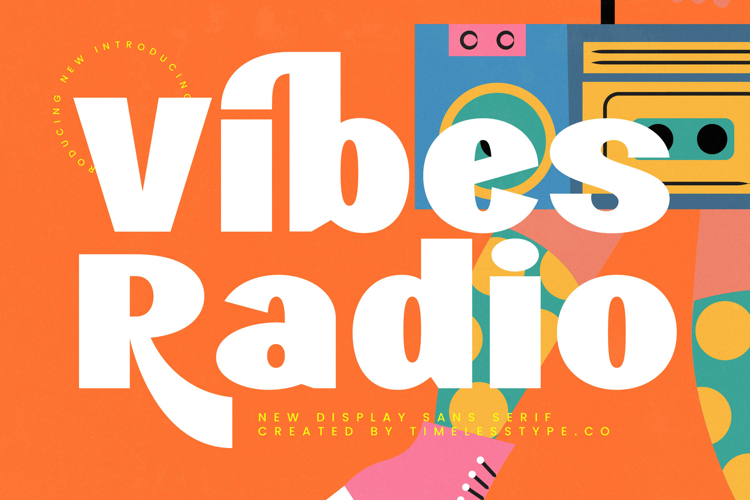
Vibes Radio - New Display Sans Serif
The Vibes Radio Typeface is a display sans serif font with a bold, fun, and retro-modern style. Designed to bring a vibrant, playful, and expressive atmosphere, this font is perfect for music, entertainment, and lifestyle-themed designs. Its thick, clean letterforms with subtle unique accents create a dynamic and eye-catching look, making it the ideal choice for creative projects that aim to highlight joy and positive energy.
This typeface works exceptionally well in editorial design, such as event posters, music magazines, creative zines, and pop culture book covers. Its bold typography ensures strong readability and impactful messaging.
In branding and packaging, Vibes Radio is an excellent fit for casual fashion, music products, soft drinks, creative merchandise, and youth-oriented brands. Its retro yet modern aesthetic creates a visual identity that feels cheerful, warm, and memorable.
For entertainment and promotional design, this font is highly effective for concert posters, festival campaigns, album covers, and media promotions. Its bold and funky character strengthens visual storytelling with a contemporary retro vibe.
In the field of digital design, Vibes Radio stands out in social media content, website branding, digital advertising, and motion graphics. Its energetic style makes it instantly recognizable and engaging across platforms.
In short, Vibes Radio Typeface is a display sans serif font crafted to deliver joy, retro-modern flair, and stylish energy. Perfect for editorial, branding, packaging, entertainment, advertising, and digital campaigns, this font transforms typography into a fun, energetic, and spirited visual element.